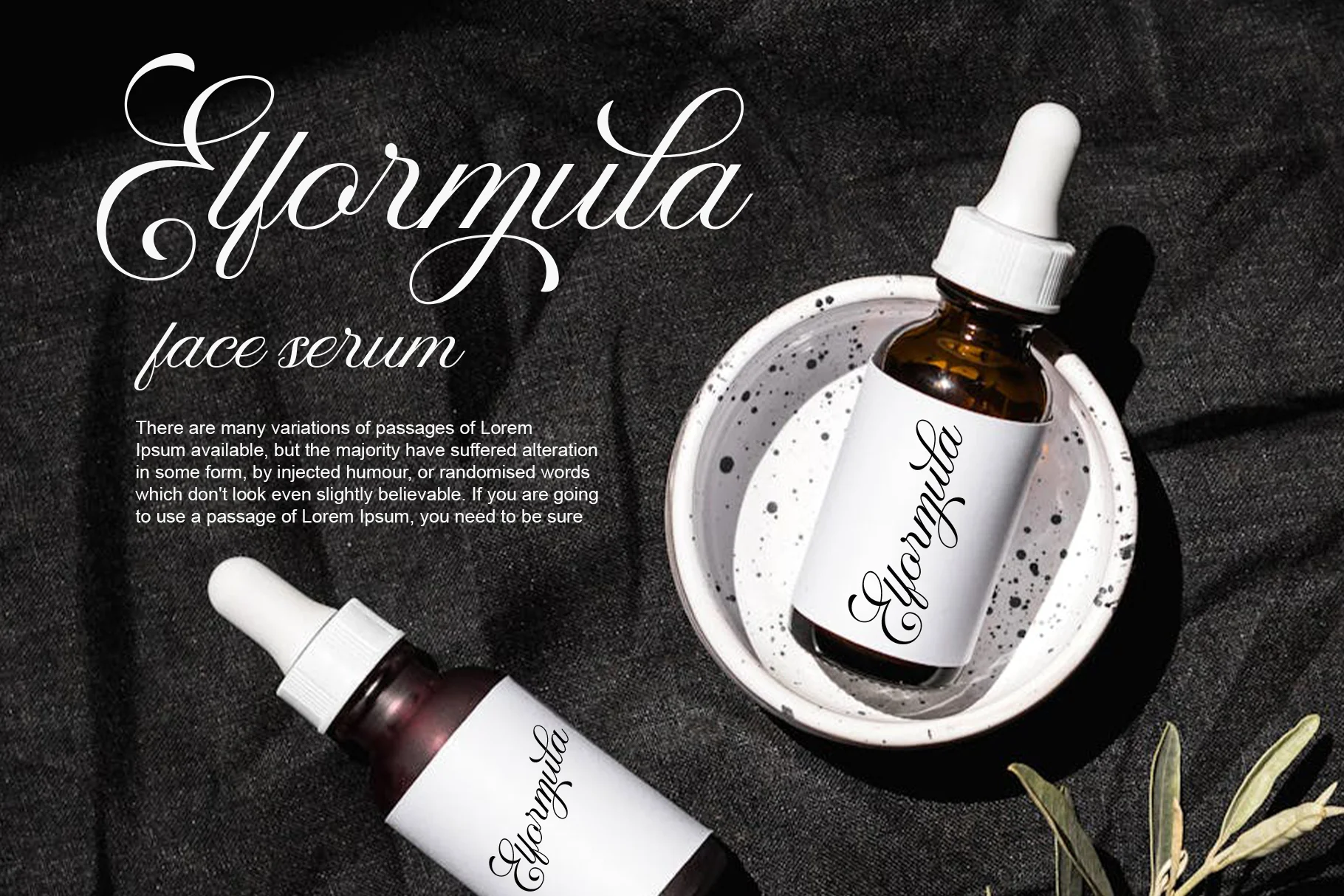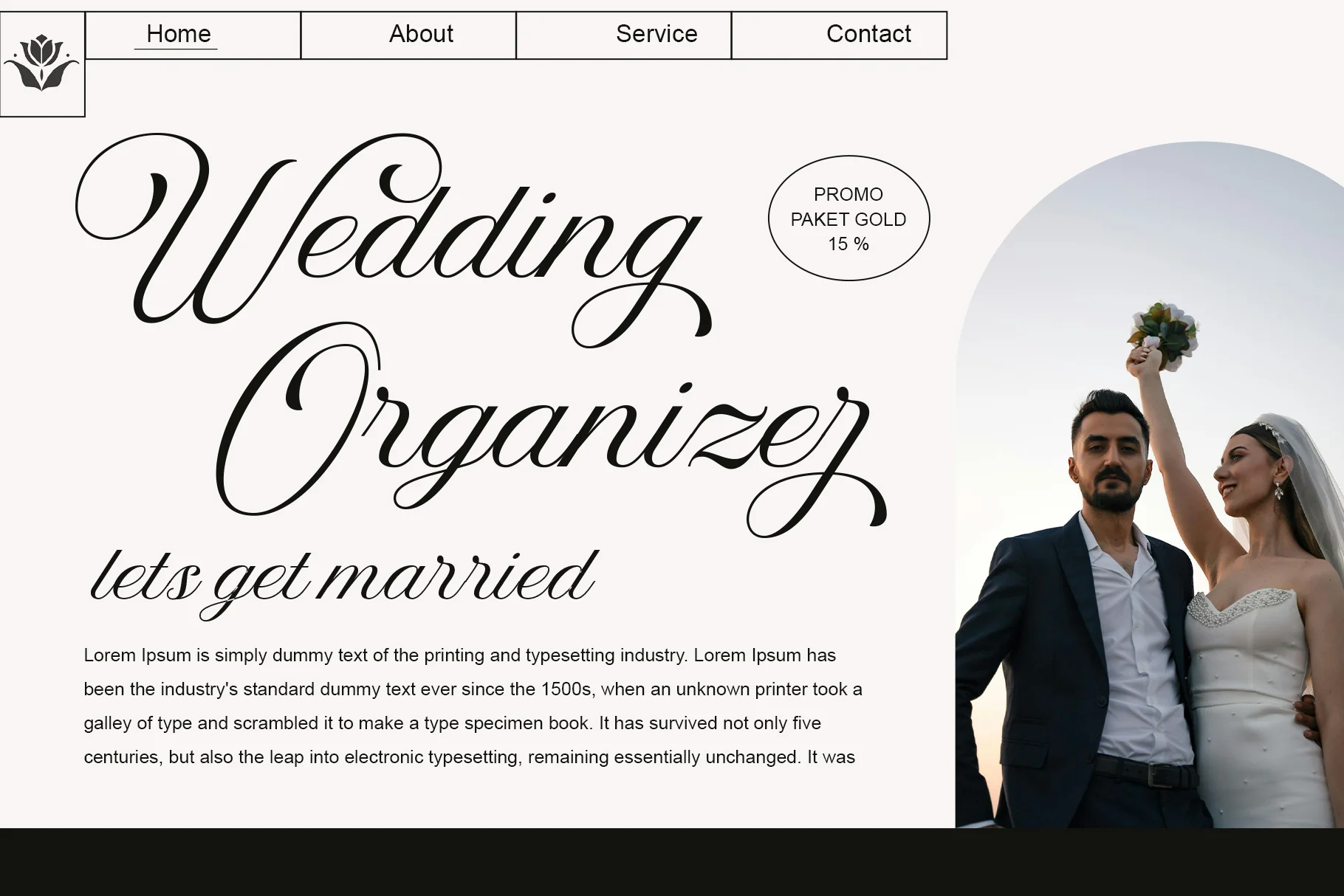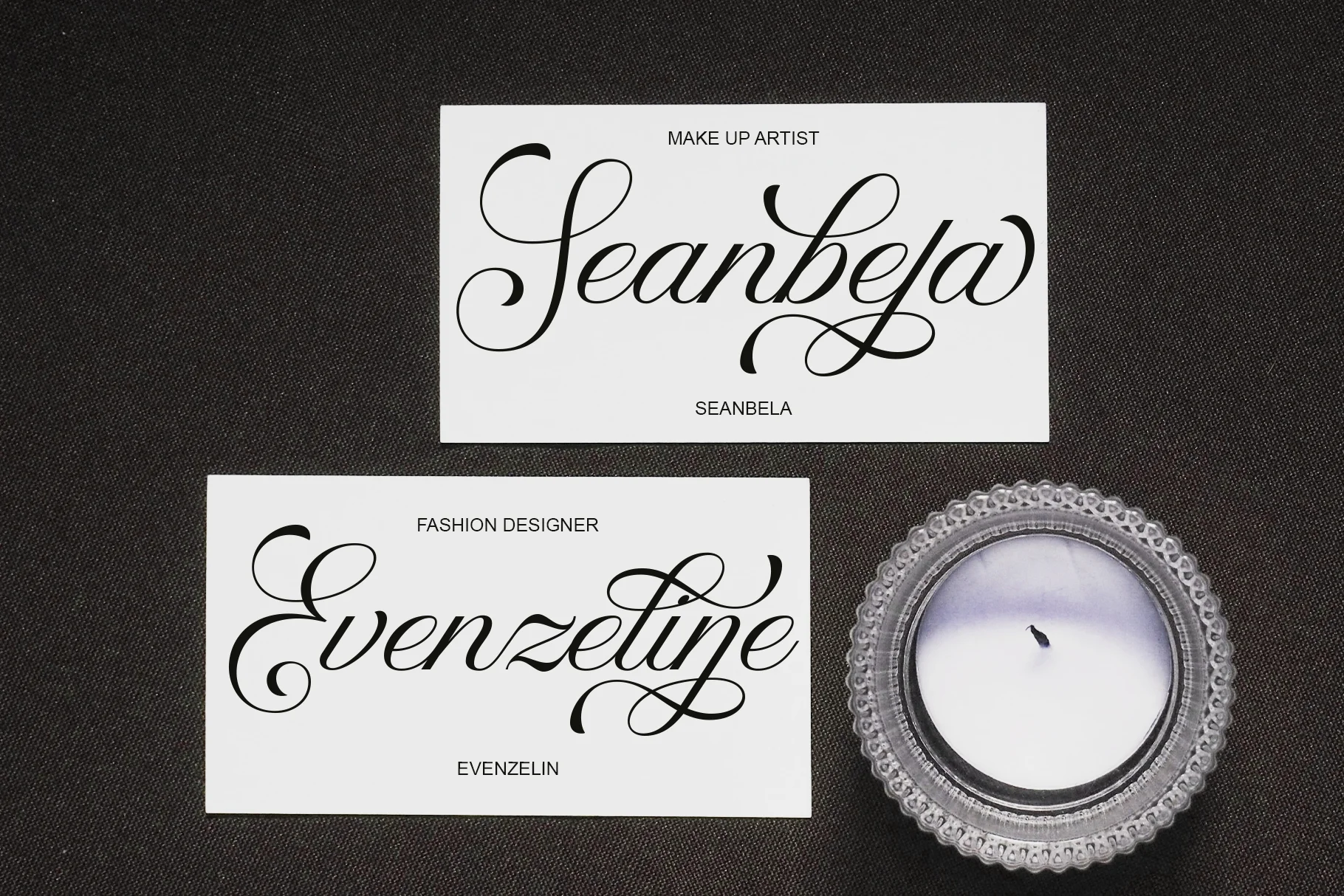
Mollina
This is a Script or Calligraphy style font that exudes sophistication and luxury. The strokes are very thin (fine) and feature long, flowing, and exaggerated swashes, particularly on the initial capital letter and the ending strokes. The overall effect is dramatic and refined.
Mollina includes alternative letter shapes (glyphs) that can be used to add a personalized and artistic flourish to the design. This feature allows the designer to select the most elegant and elaborate form for a given word.
This font is suitable for use for
- Logos for luxury brands (e.g., jewelry, cosmetics, high fashion).
- Formal wedding or exclusive event invitations.
- Labels for fine wine or premium perfume bottles.
- Elegant headers or digital signatures.